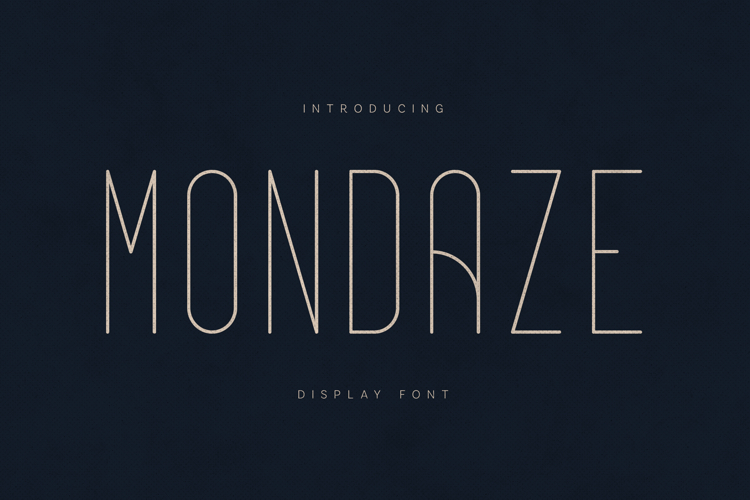
Mondaze Ultra Thin Minimal Display Font
Mondaze is an ultra-light geometric display typeface designed around silence, space, and precision.
Built on a monoline structure with softened curves and elongated proportions, it creates a calm visual rhythm that feels both futuristic and human. Every letter is reduced to its essential form — nothing extra, nothing loud.
This is not a font that shouts.
It breathes.
The subtle curvature inside characters like A, R, D adds a quiet uniqueness, making Mondaze instantly recognizable while still remaining minimal.
Perfect for projects where typography becomes atmosphere rather than decoration.
✦ Ideal for:• minimal branding
• fashion/editorial design
• luxury visuals
• modern posters
• web & UI typography
• architecture presentations
• creative direction decks
• typography-first layouts
Mondaze is part of the Loopstate direction — where noise becomes form and simplicity becomes identity.